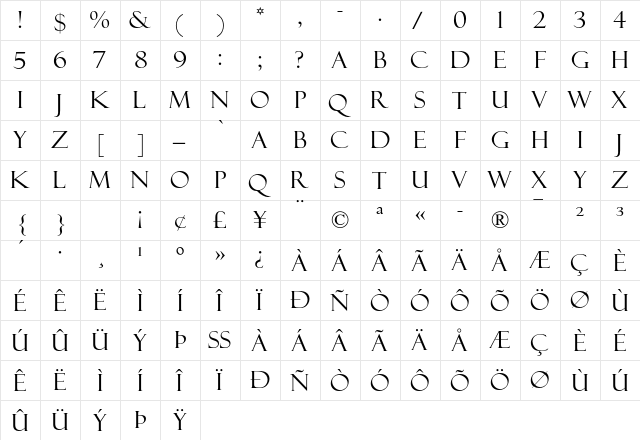
Felix Titling MT Std Regular
Design Context for Felix Titling MT Std Typeface
Felix Titling MT Std is a composed and adaptable typeface that performs quietly and consistently across a wide range of design contexts.